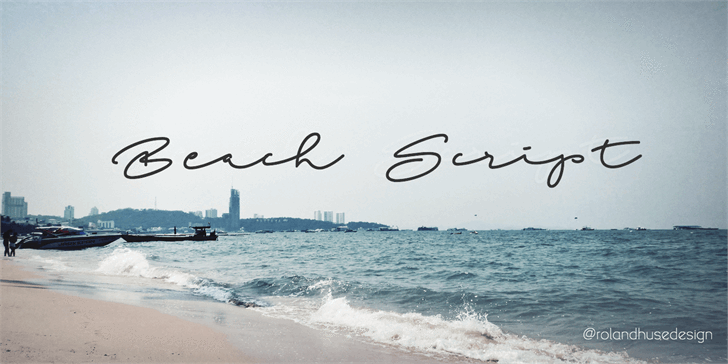
Featuring the life-changing free beach script font. This is a downloadable free font file brought to you by Font Space. This is absolutely fancy font so you can easily make world-class designs.